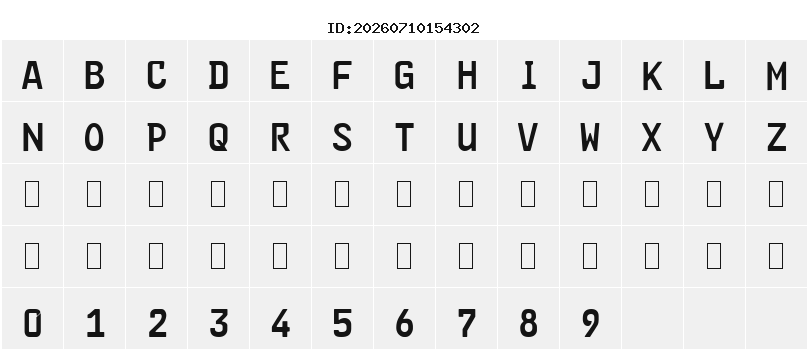
FE-Font Preview
• Font Name: FE-Font
• Full Font Name: FE-Font
• PostScript Name: FE-Font
• Character Count: 38
About FE-Font.ttf
FE-Font.ttf is a modern, elegant sans-serif font designed for ultimate readability and visual harmony. Perfect for branding, headlines, web design, and print materials.